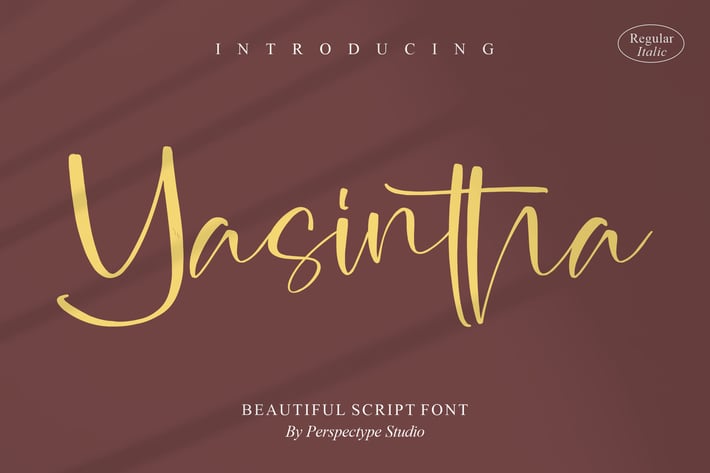
Yasintha Script Font
Yasintha is a refined modern script with silky curves, elegant swashes, and a fashion-forward glow. High-contrast strokes and long, graceful terminals create a luxe signature feel that shines on beauty, wedding, and lifestyle projects. With Regular & Italic styles, polished spacing, and tasteful alternates, Yasintha makes sophisticated typography feel effortless.
+ Regular & Italic styles for easy pairing
+ Stylistic alternates & natural ligatures
+ Beginning/ending swashes for signature flair
+ Smooth curves and refined kerning for clean results
Yasintha—your signature, refined.
Design by Perspectype Studio